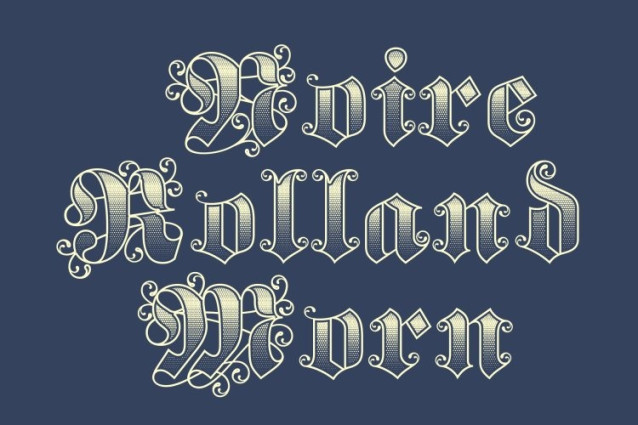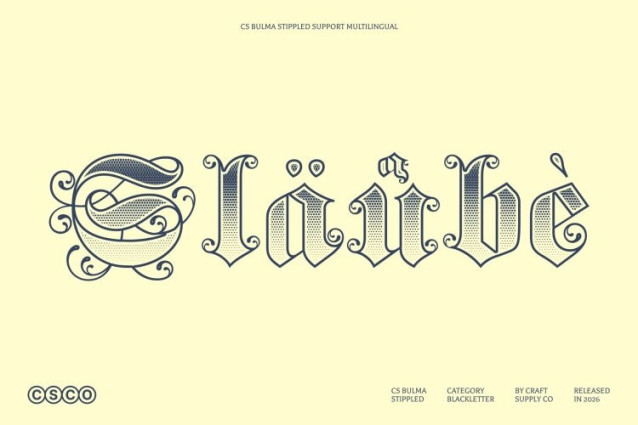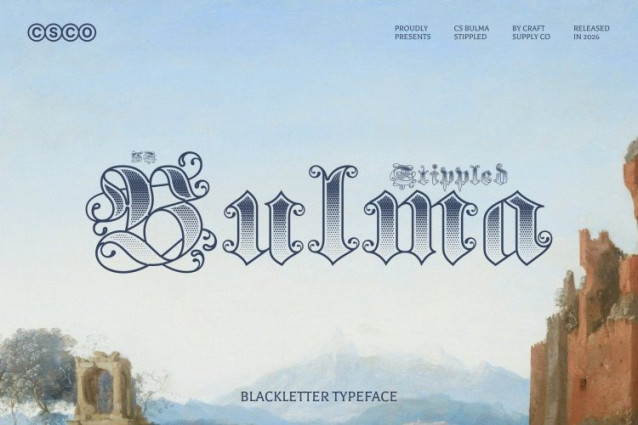
CS Bulma Stippled Font
CS Bulma Stippled Font is a blackletter display font that captures the bold, angular structure and intricate detailing of traditional Gothic lettering. Inspired by medieval typography, its sharp forms convey a strong sense of history, authority, and drama. The addition of a stippled texture enhances the letterforms with subtle depth and an engraved appearance, enriching the font with a handcrafted and vintage aesthetic.
Medieval Letterforms with Dramatic Presence
Defined by detailed, angular shapes and strong vertical strokes, this font brings the spirit of classic blackletter typography to life. Its Gothic influence creates a commanding and impactful visual presence, while the textured stippled surface adds complexity and artistic nuance. This combination allows the font to feel both historically authentic and visually distinctive.
Textured Character with Historic Atmosphere
The stippled effect introduces a dense dotted texture inspired by traditional engraving and stippling techniques. This detail adds dimension to the bold strokes and decorative edges, reinforcing the medieval atmosphere while giving the typography a rich, tactile character.
Perfect for Bold Headlines and Heritage Branding
This font excels in designs that demand strong visual impact. It works beautifully for headlines, logos, posters, album covers, and branding that embrace gothic, vintage, or historical themes. By blending classic blackletter structure with textured detail, the font delivers a bold typographic voice that feels powerful, dramatic, and timeless.